Nothing captures the essence of a sun-soaked adventure quite like the perfect summer font. The right typography can turn a simple layout into a warm, tropical escape, whether you are designing for a beachside brand or a backyard BBQ invite.
This connection is driven by the fact that 94% of first impressions are design-related, meaning the “vibe” of your font often determines a consumer’s trust in your brand long before they read the actual content.
Key Takeaways:
Ready to dive into a sea of creativity? Explore our handpicked selection of vibrant typefaces designed to bring energy, warmth, and a vacation vibe to your projects.
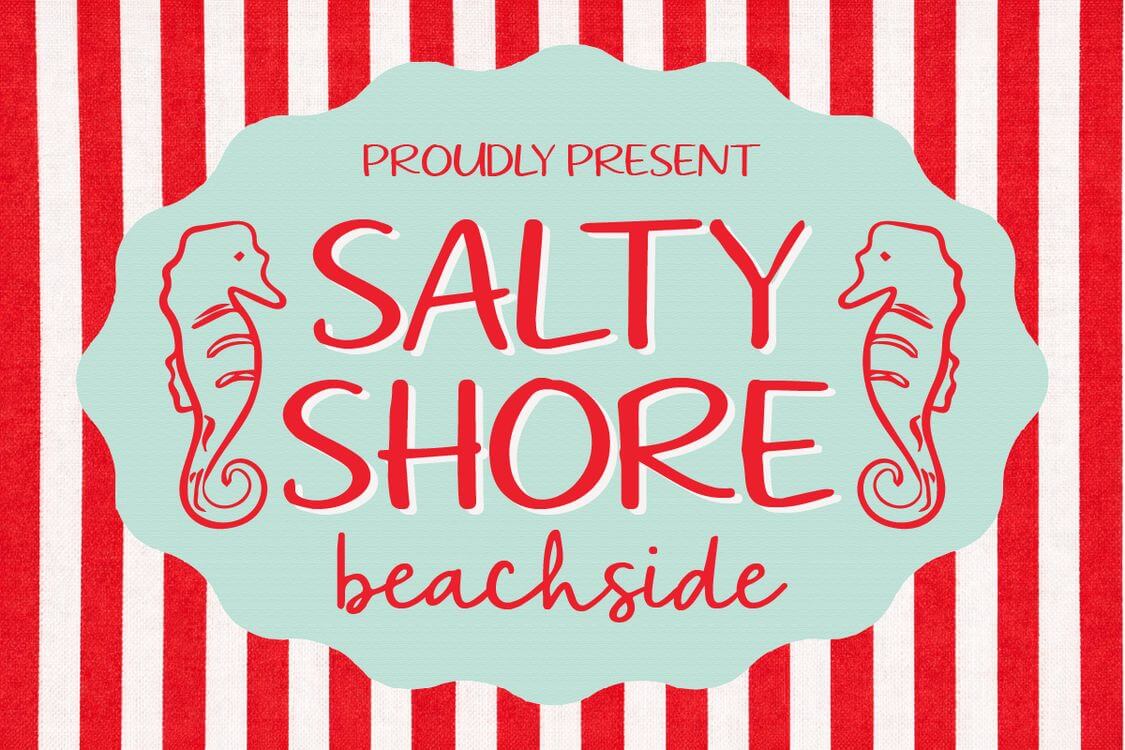
Salty Shore Beachside uses the casual, handwritten style to evoke a lively, sunny day in the summertime. With its vintage appearance, this font also exudes familiarity.
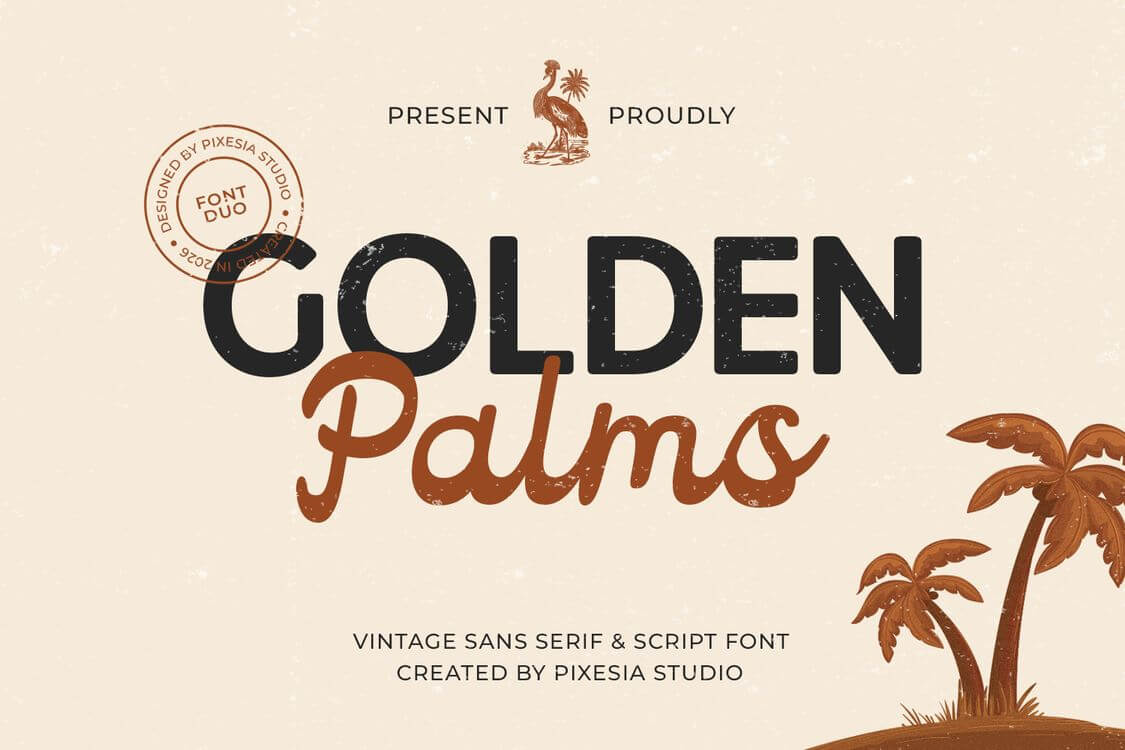
Golden Palms is a vibrant duo featuring a rugged sans-serif and a fluid script. This essential summer font utilizes weathered textures and organic letterforms to capture a sun-drenched, tropical beach aesthetic.
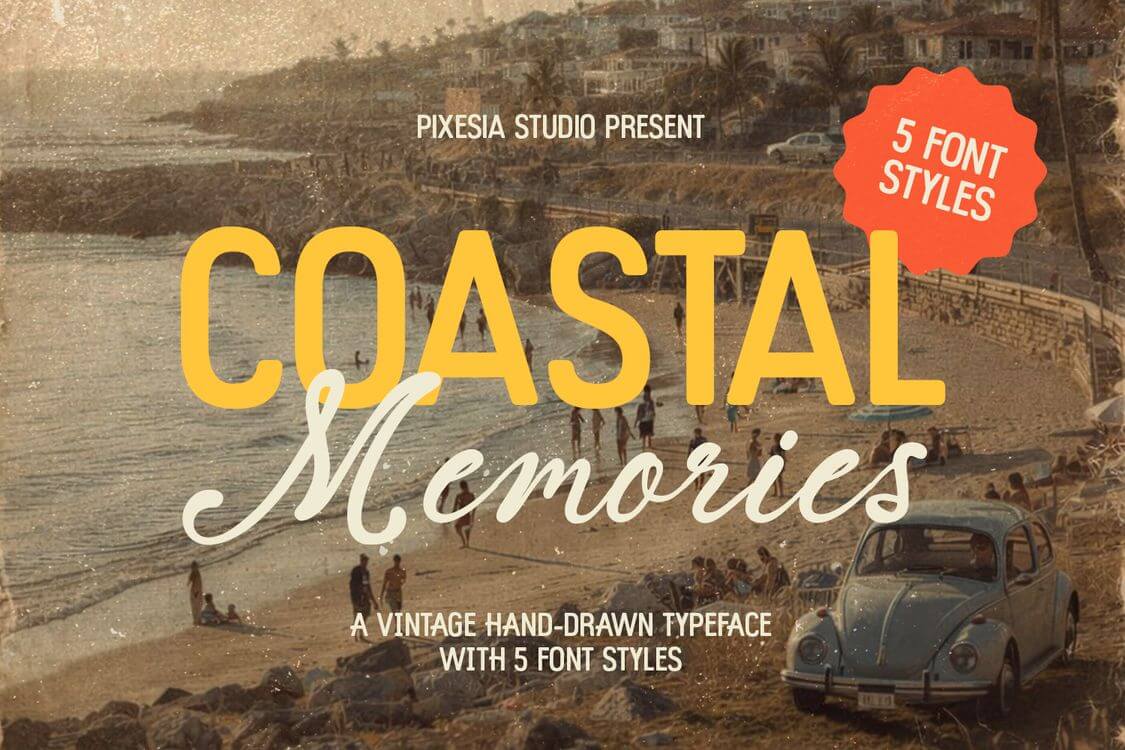
Coastal Memories is an all-in-one package when you’re making summer concepts. This beachy font provides multiple textures for sans-serif and script fonts, allowing you to make a cohesive design with no worries.
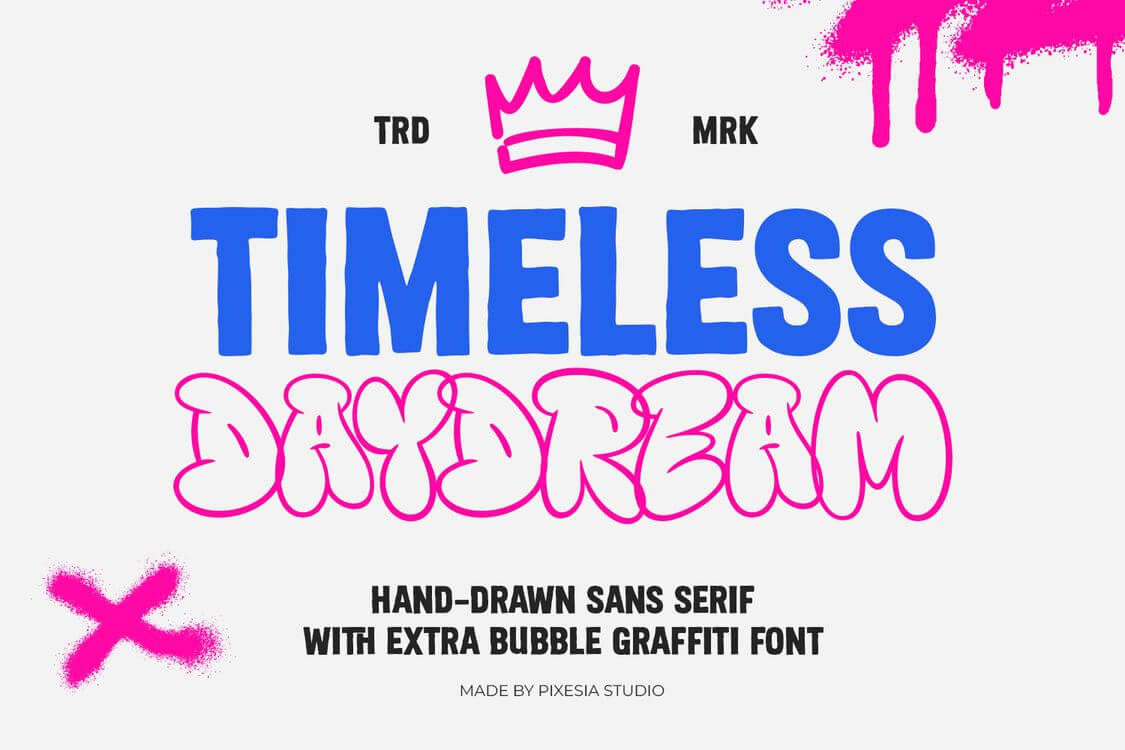
When you’re designing a more modern and urban concept, Timeless Daydream can elevate it. Its sans-serif and graffiti combo allows a vibrant and energetic graphic, truly a versatile visual that stands out.
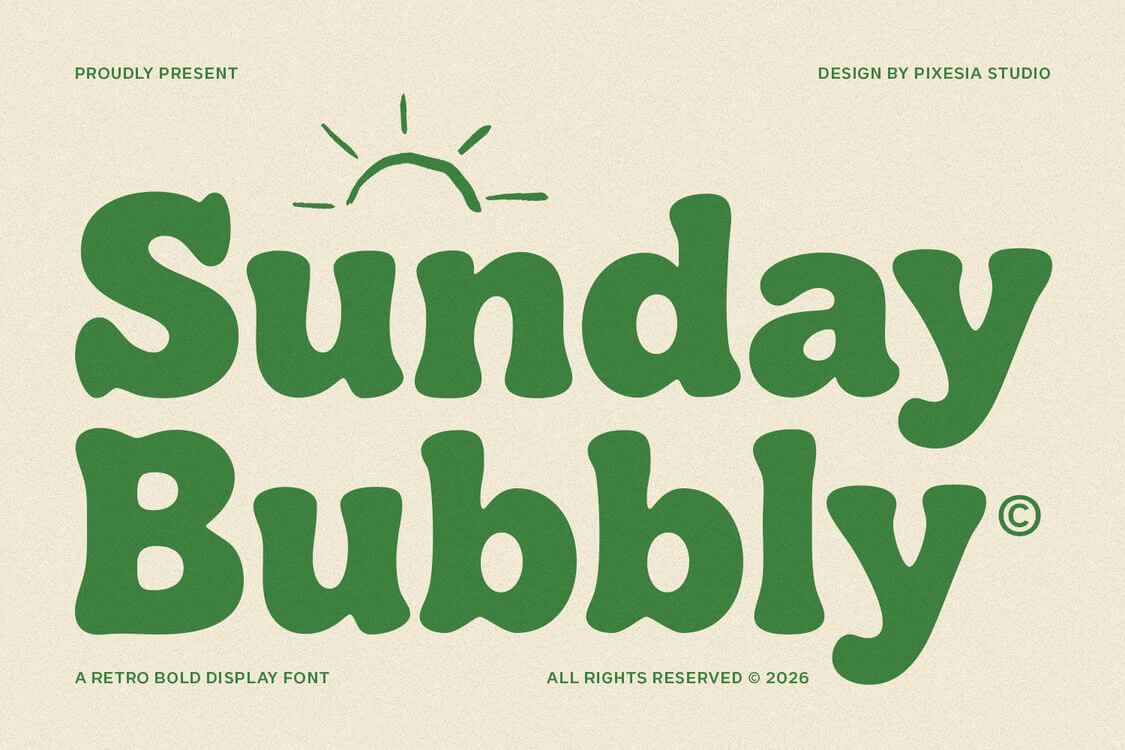
Sunday Bubbly is a bold retro font with lively personalities and warm touches. This summer holiday font is perfect to write captions on top of your vacation pics. With bright colors and simple texts, you can already stylize a memory.
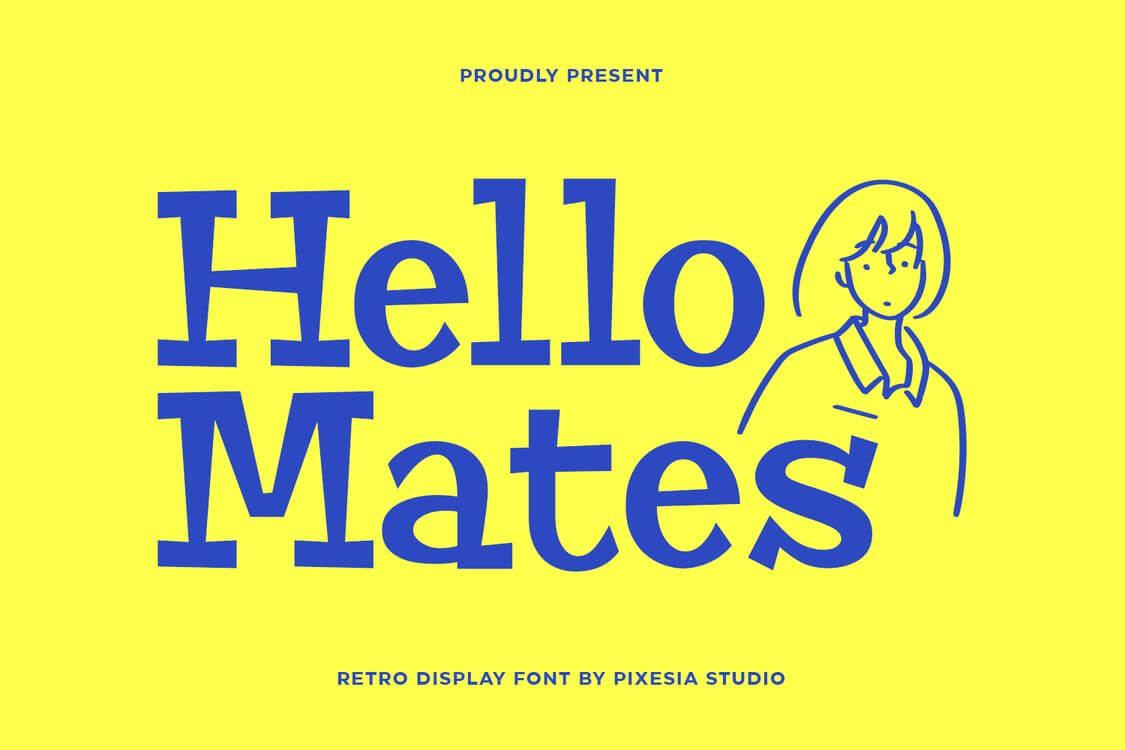
With a comical retro look, Hello Mates offers a versatile, sunny aesthetic. This font has clean lines and angular strokes, but is not rigid. It is the perfect font to radiate a sunlit feeling within your business.
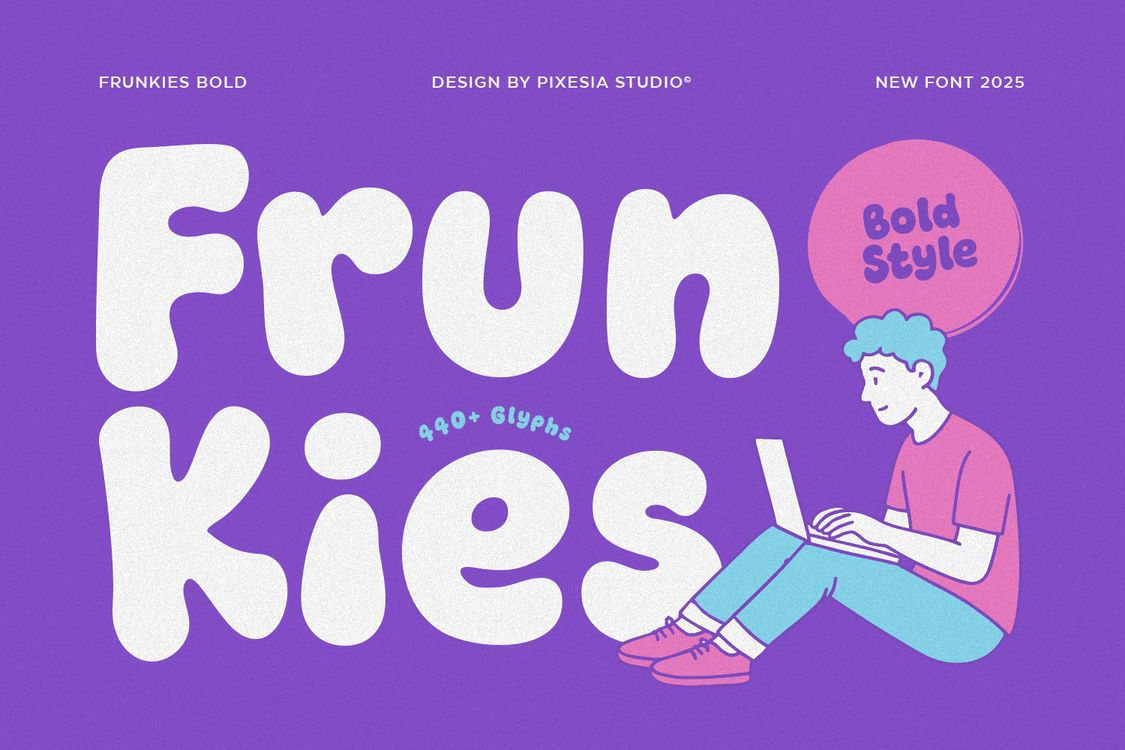
Bubble-like fonts like Frunkies can instantly exude the cozy, lighthearted feeling. Its innate playful nature brings joy and rhythm, allowing you to put this font in any product to stand out.
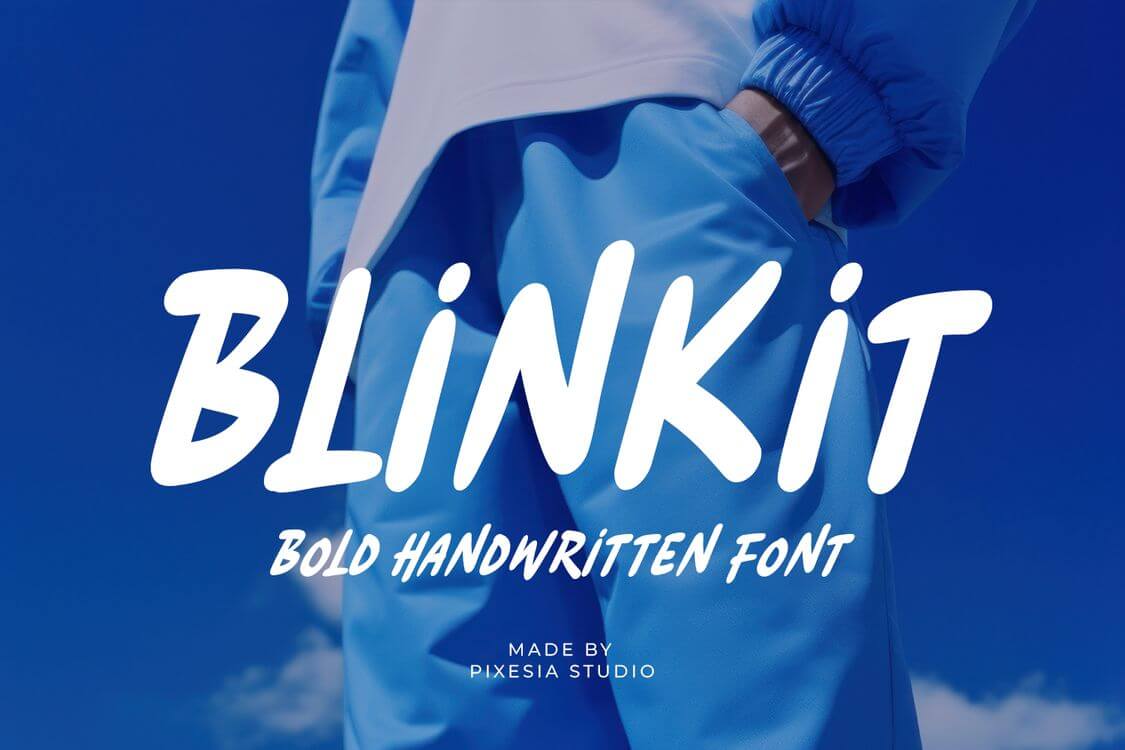
Blinkit is a high-energy summer font featuring bold, handwritten letterforms and a tactile, marker-style finish. Its irregular baseline and organic terminals radiate a youthful, adventurous aura for beach-themed creative projects.
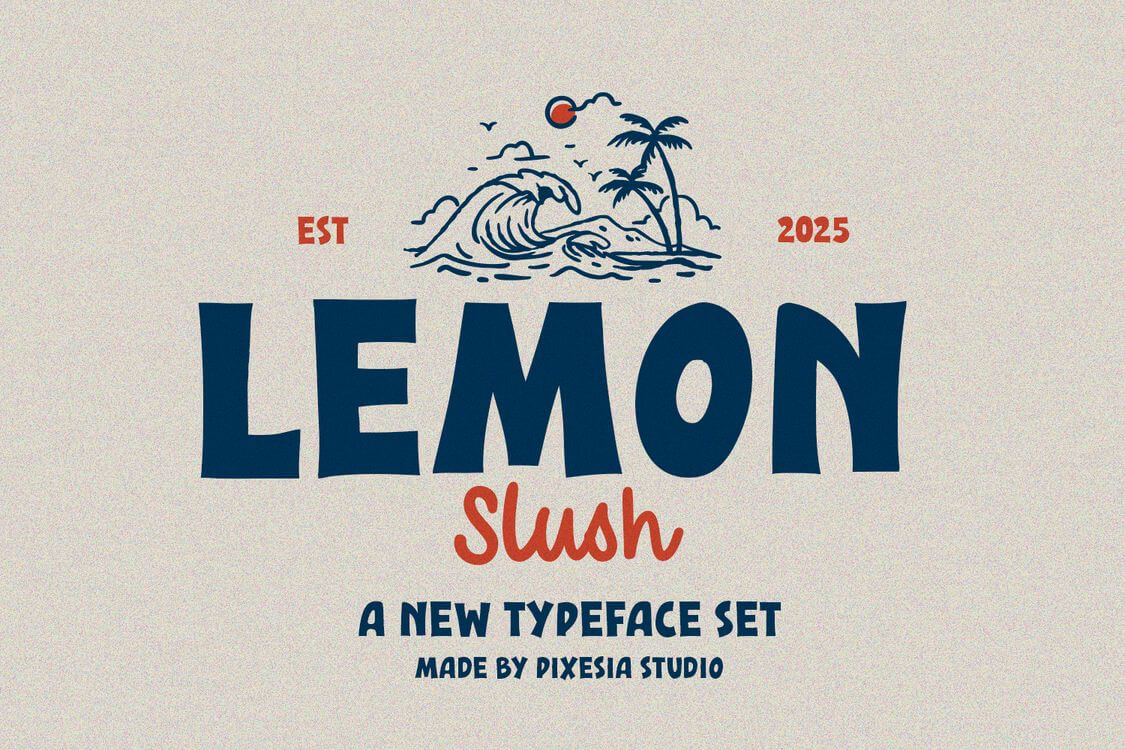
Lemon Slush is a total package to make screaming signage. Combining the loud sans serif and the tasteful script is the formula to make a striking vacation-themed design.
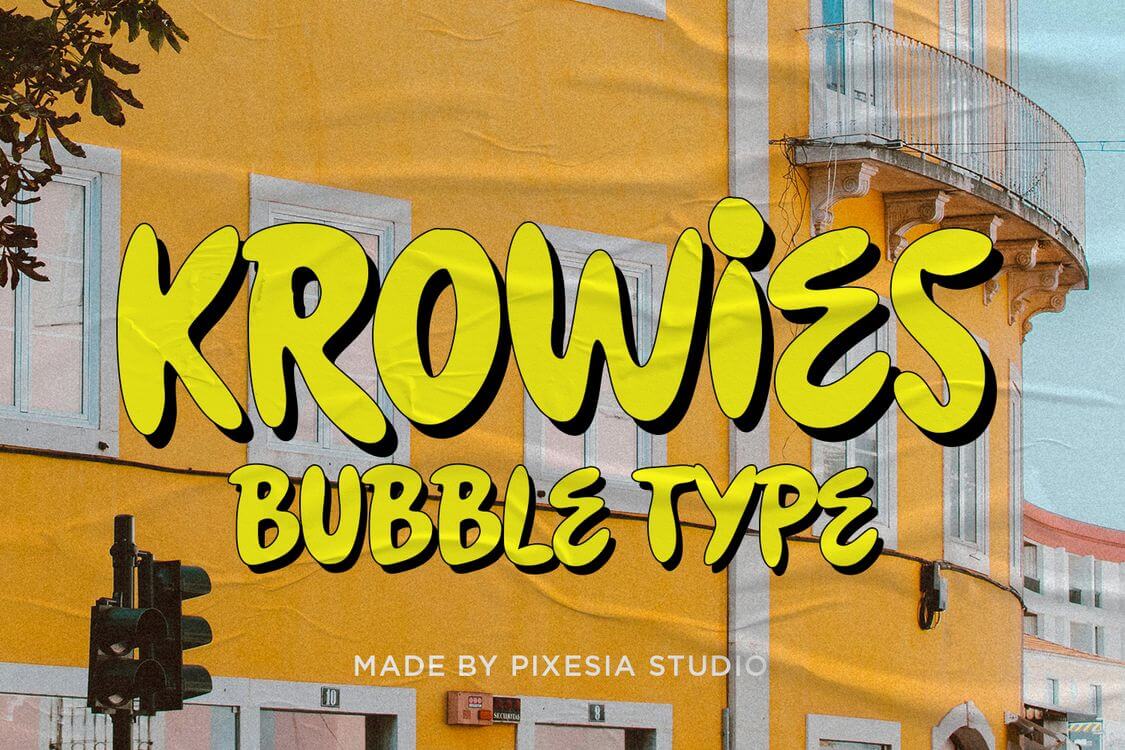
Featuring a bold, inflatable aesthetic, Krowies offers a whimsical charm for seasonal designs. Its rhythmic silhouette and soft edges create a lighthearted vibe, serving as an essential summer font for animated posters.
With its thick stroke weights and expressive apertures, Spunkids captures a spirited, carefree persona. This nimble font utilizes generous swashes to create a joyful rhythm, especially for vibrant toy packaging.
Milky Pinky is a bold script font with a joyful and lively personality. Using this font, you can elevate your pictures and creative projects to a loud and ecstatic experience.
Orange Squash is a sophisticated vintage serif featuring high-contrast strokes and elegant, sweeping swashes. Its refined terminals and sturdy stems evoke a rustic, sun-drenched charm perfect for boutique vineyard branding.
Brimming with innocent charm, Dark Kids utilizes soft, rounded terminals and a flowy rhythm. This playful typeface captures a handcrafted aura, a quintessential choice for nostalgic childhood fonts with a bright, sun-kissed soul.
Characterized by its tall letters and condensed, rounded silhouette, Moggly radiates a cheerful and bouncy persona. Its casual rhythm and soft terminals make it a commanding choice for vibrant, summer time fonts or social media graphics.
The magic of summer design lies in its ability to feel both high-energy and completely relaxed. These fonts bridge that gap, offering the playful curves and adventurous spirit needed to make your seasonal branding unforgettable.
If you’re looking to bring these sunny vibes to your arsenal, you can find these exact typefaces at Pixesia Studio. Our collection is built for creators who want professional, expressive typefaces that capture the authentic spirit of summer with every single character.
Focus on the emotional tone of your project and the typical, familiar look.
Highly stylized typefaces are better for headlines or short phrases because of their irregular baseline.
Visual elements like weathered, “sandy” textures, fluid “wave-like” swashes, and bouncy baselines mimic the organic, relaxed movement of nature.